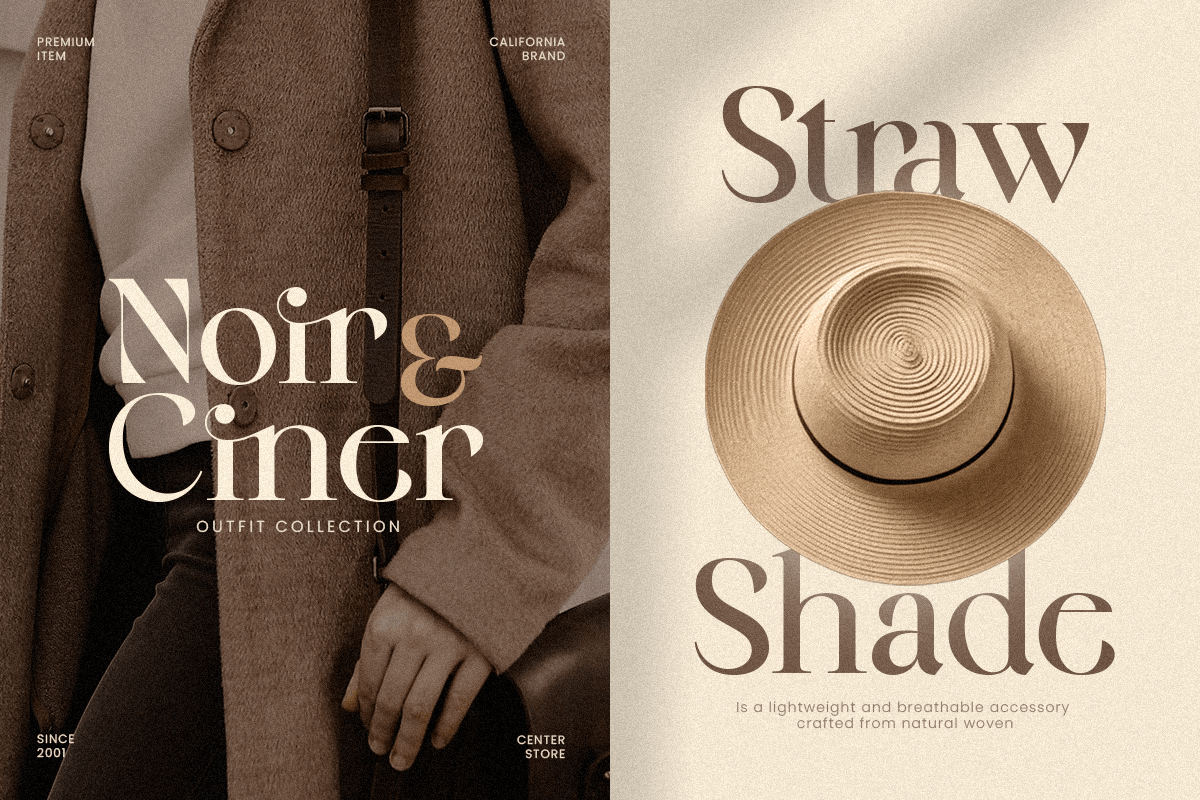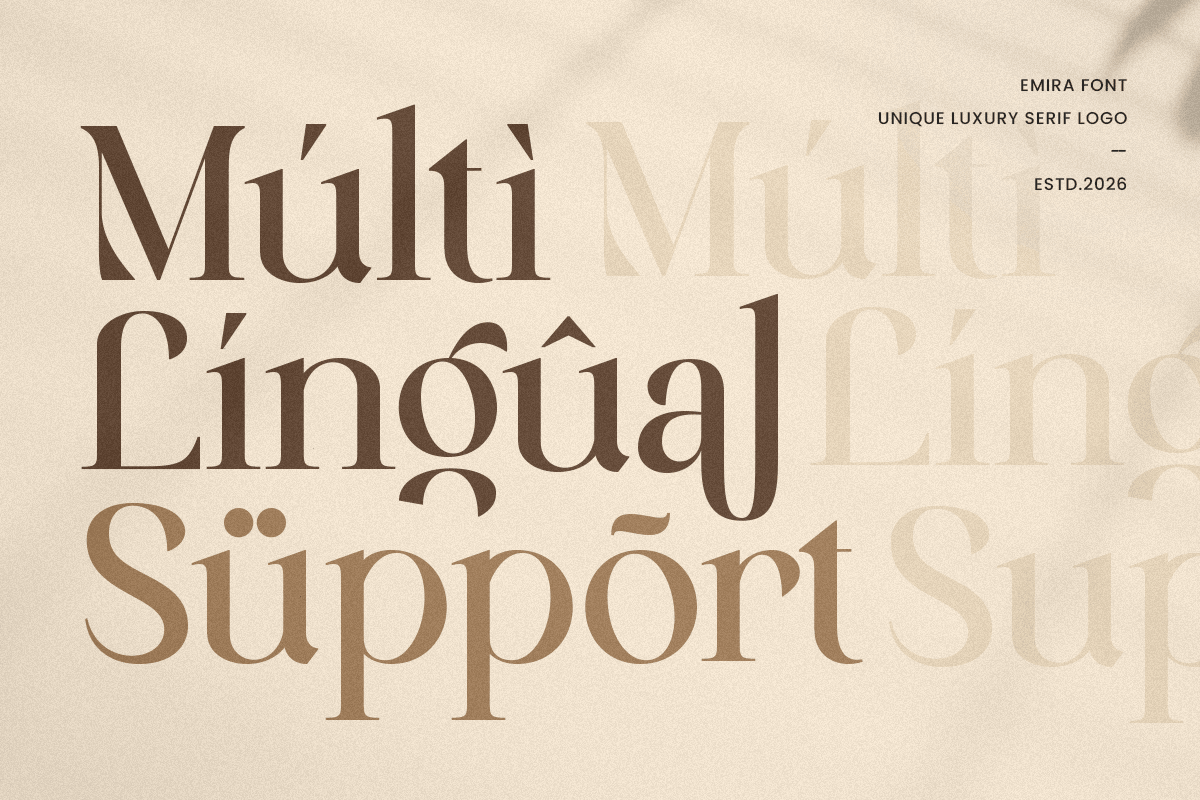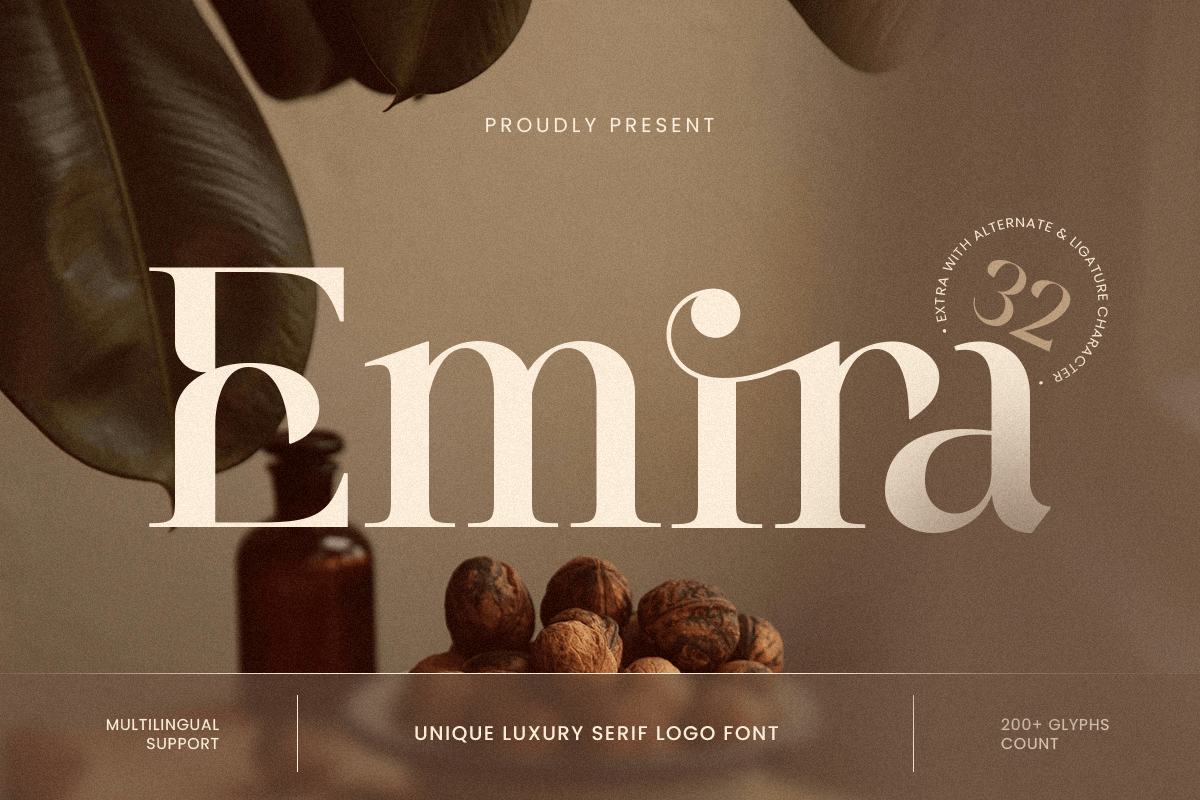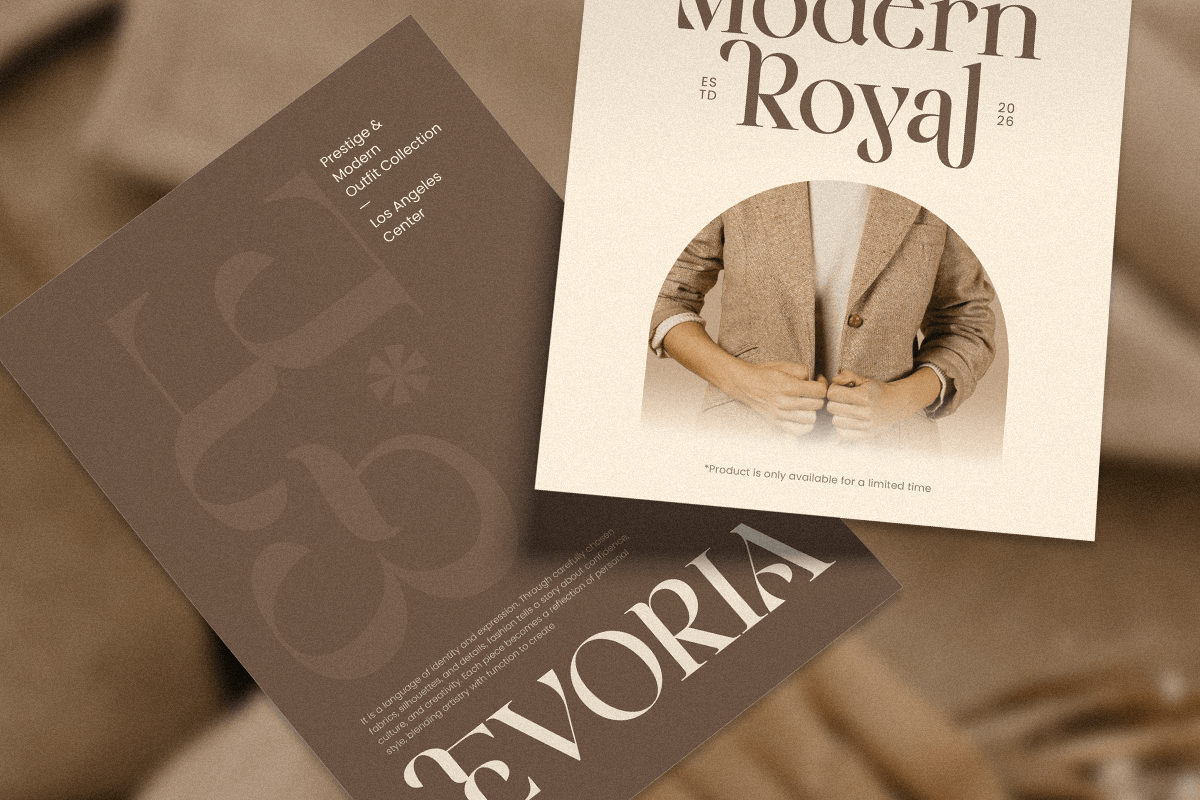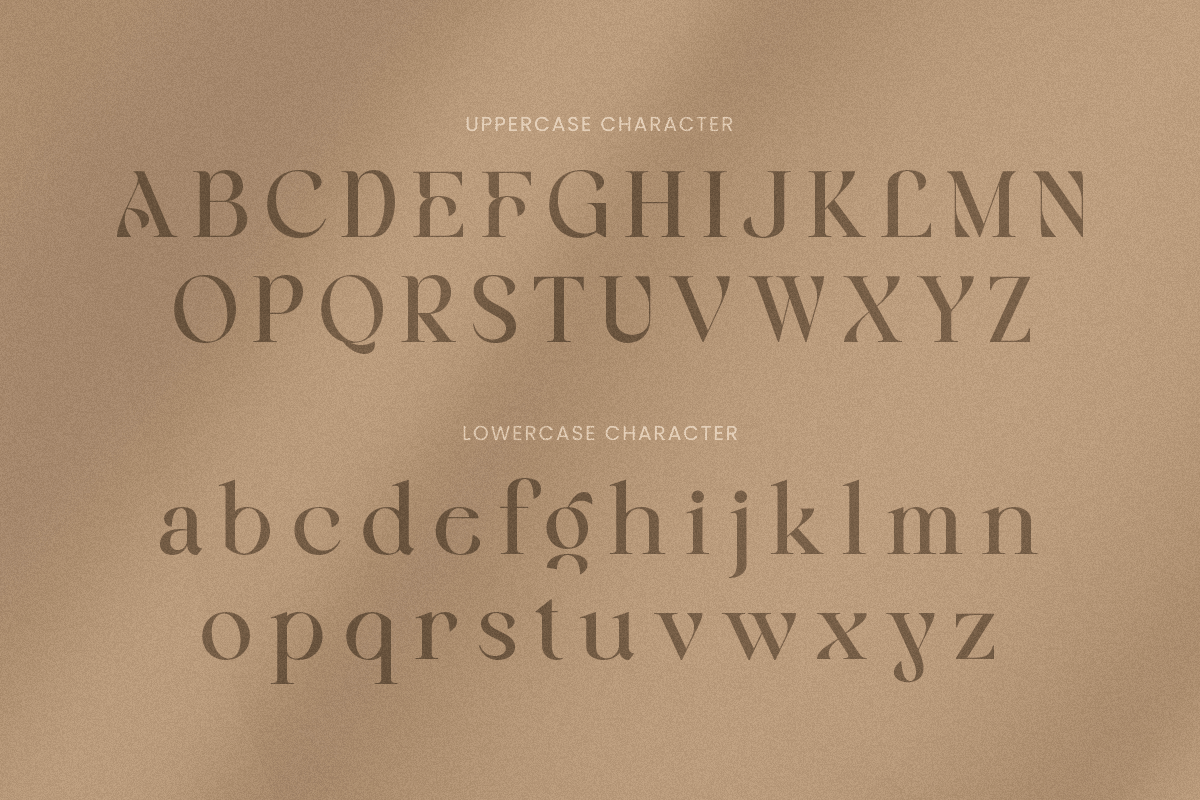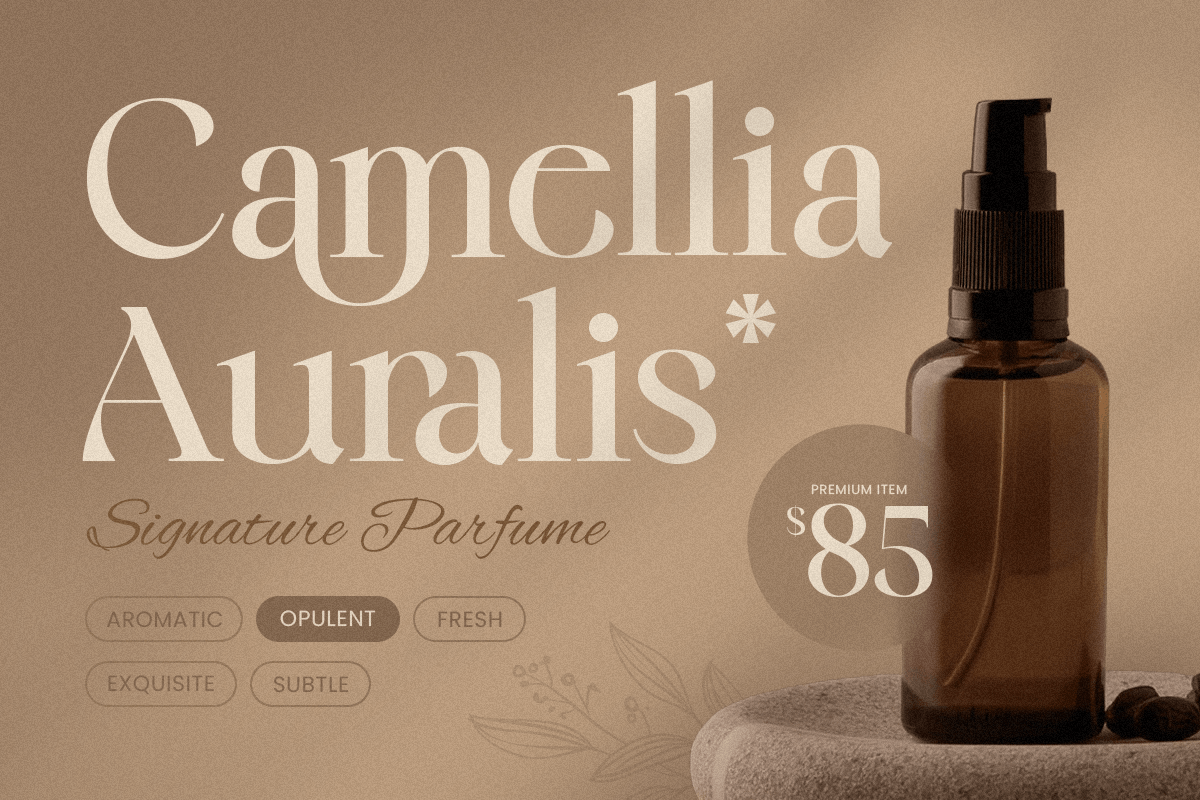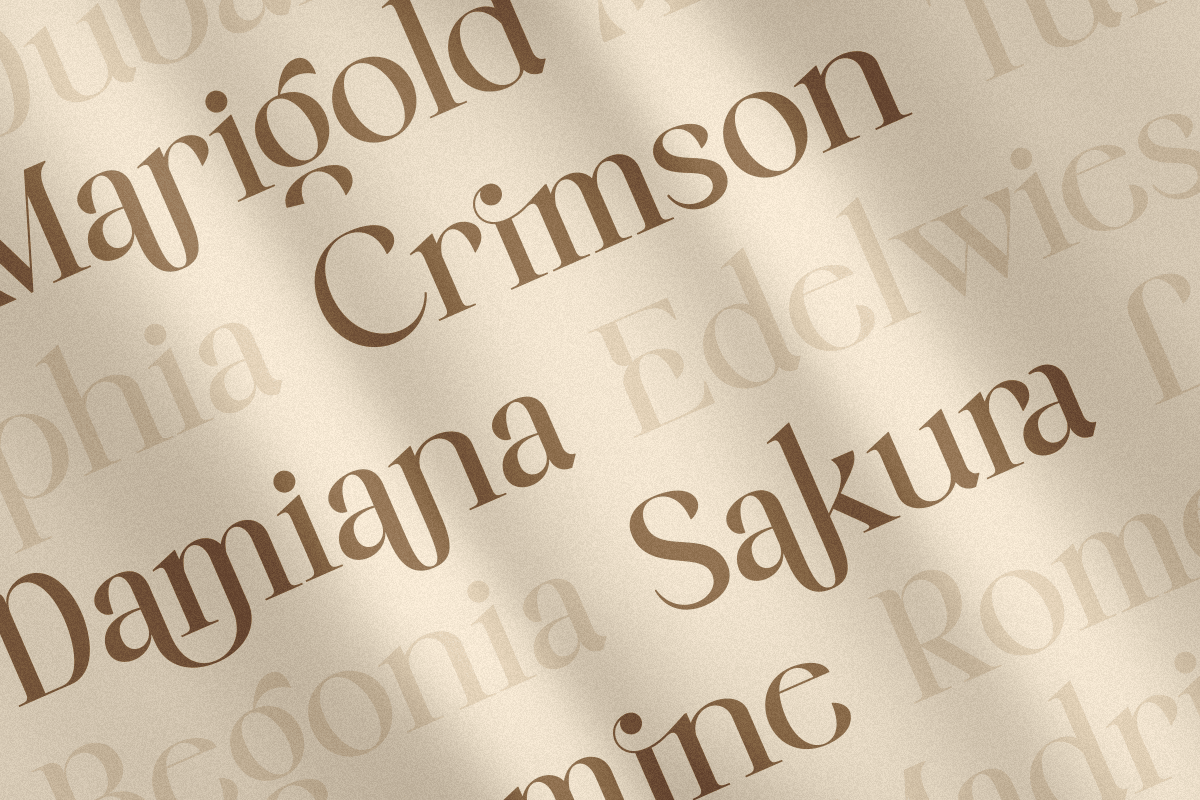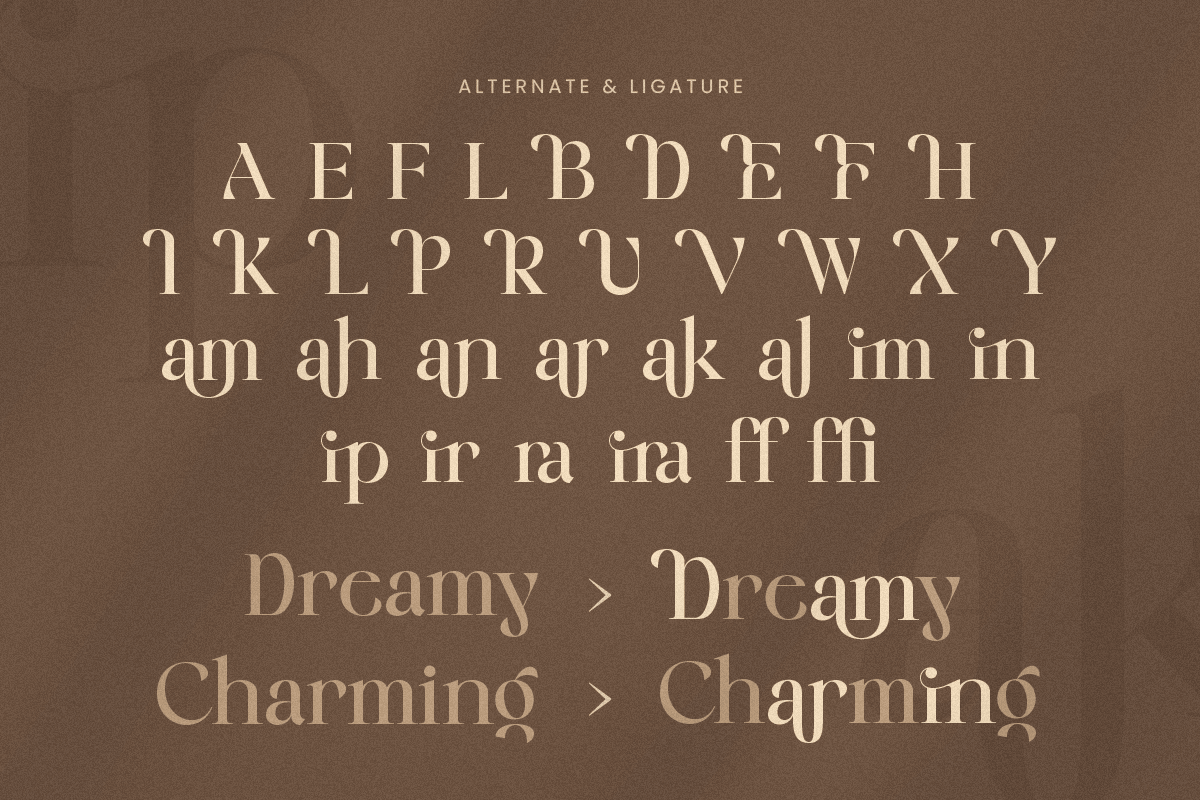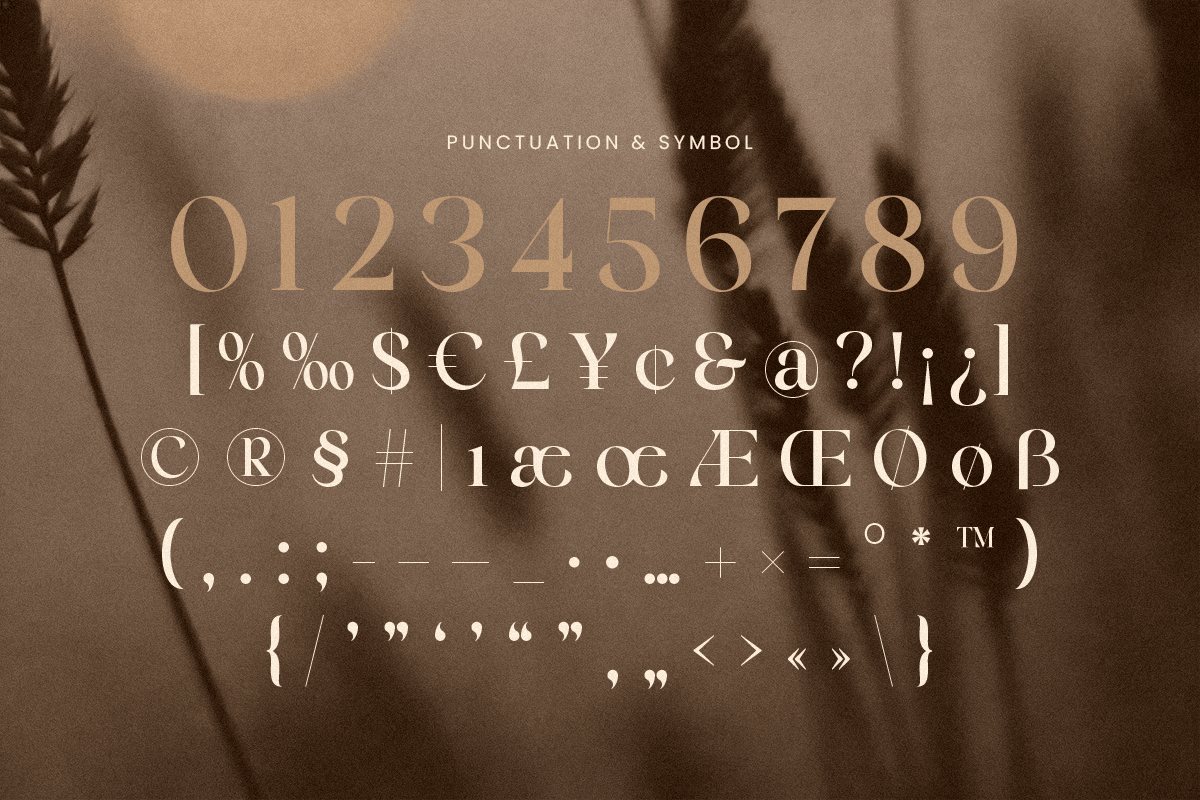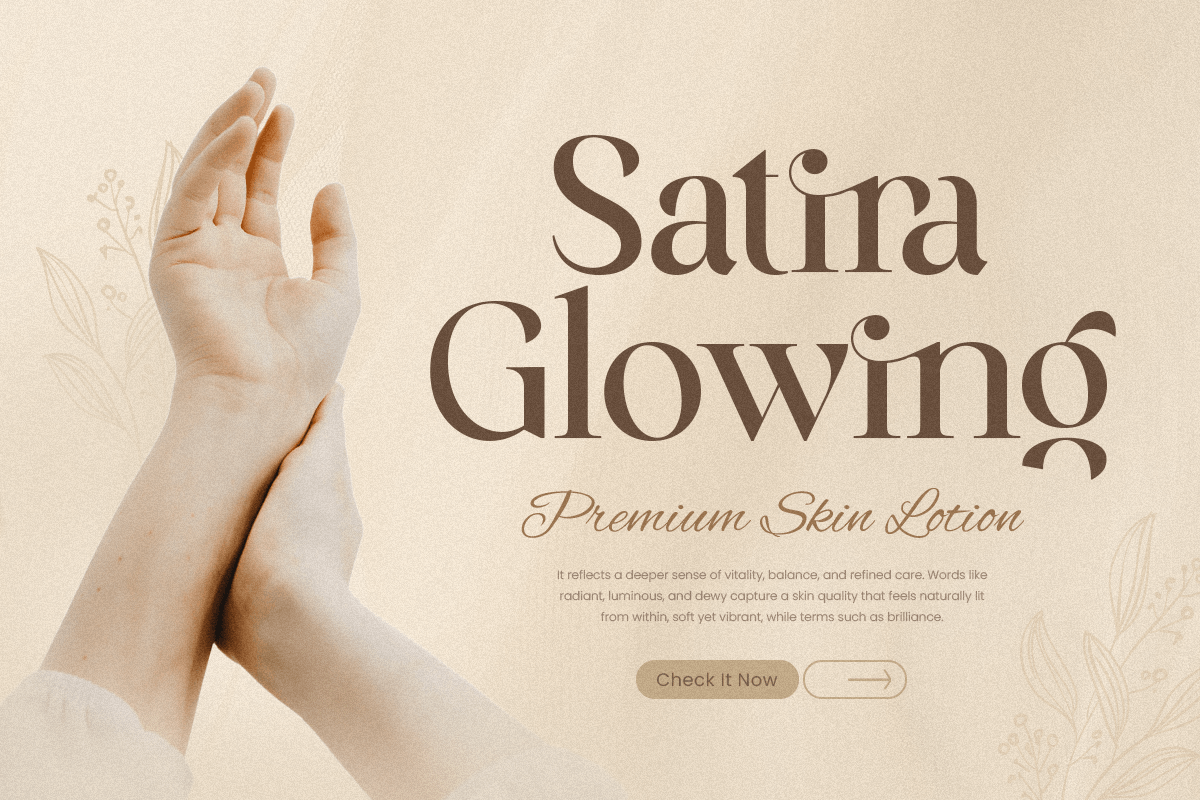
Emira - Unique Luxury Logo Font
Emira is a unique luxury serif logo font designed to deliver refined sophistication with a distinctive premium character. With elegant serif details, polished proportions, and a confident visual rhythm, this typeface creates a high-end tone that feels stylish, memorable, and instantly brand-ready.
Built for logo-focused branding, Emira works beautifully across wordmarks, brand identity systems, website headers, editorial layouts, packaging, labels, invitations, signage, presentations, and upscale marketing visuals. Its unique serif structure gives every composition a more exclusive and recognizable personality while maintaining clarity across both digital and print design.
Whether you’re building a fashion identity, creating a beauty brand, designing premium packaging, or crafting elegant promotional materials, Emira provides a luxurious serif foundation that makes your typography feel polished, sophisticated, and unforgettable.
Inspiration Behind Emira
Emira is inspired by contemporary luxury branding and refined editorial typography—where elegant serif form, subtle distinction, and premium balance create a timeless visual identity. The design focuses on graceful structure and stylish presence to support high-end logos and sophisticated branding with a modern, memorable touch.
Emira Font Features:
- Unique luxury serif letterforms optimized for logo and wordmark design
- Elegant structure with premium, high-end visual character
- Strong readability for branding, headlines, and editorial layouts
- Uppercase, lowercase, numerals, and punctuation included
- OpenType features for polished professional typesetting
- Luxury logos, wordmarks, and premium brand identity systems
- Fashion, beauty, skincare, fragrance, and boutique branding
- Editorial layouts, magazine covers, and elegant headline typography
- Premium packaging, labels, invitations, and upscale stationery
- Social media campaigns, websites, presentations, and marketing assets
Afrikaans, Albanian, Asu, Basque, Bemba, Bena, Breton, Chiga, Cornish, Dutch, English, Estonian, Filipino, Finnish, Friulian, Galician, German, Gusii, Indonesian, Irish, Italian, Kabuverdianu, Kalenjin, Kinyarwanda, Luo, Luxembourgish, Luyia, Machame, Makhuwa-Meetto, Makonde, Malagasy, Manx, Morisyen, North Ndebele, Nyankole, Oromo, Portuguese, Quechua, Romansh, Rombo, Rundi, Rwa, Samburu, Sango, Sangu, Scottish Gaelic, Sena, Shambala, Shona, Soga, Somali, Spanish, Swahili, Swedish, Swiss, and more.